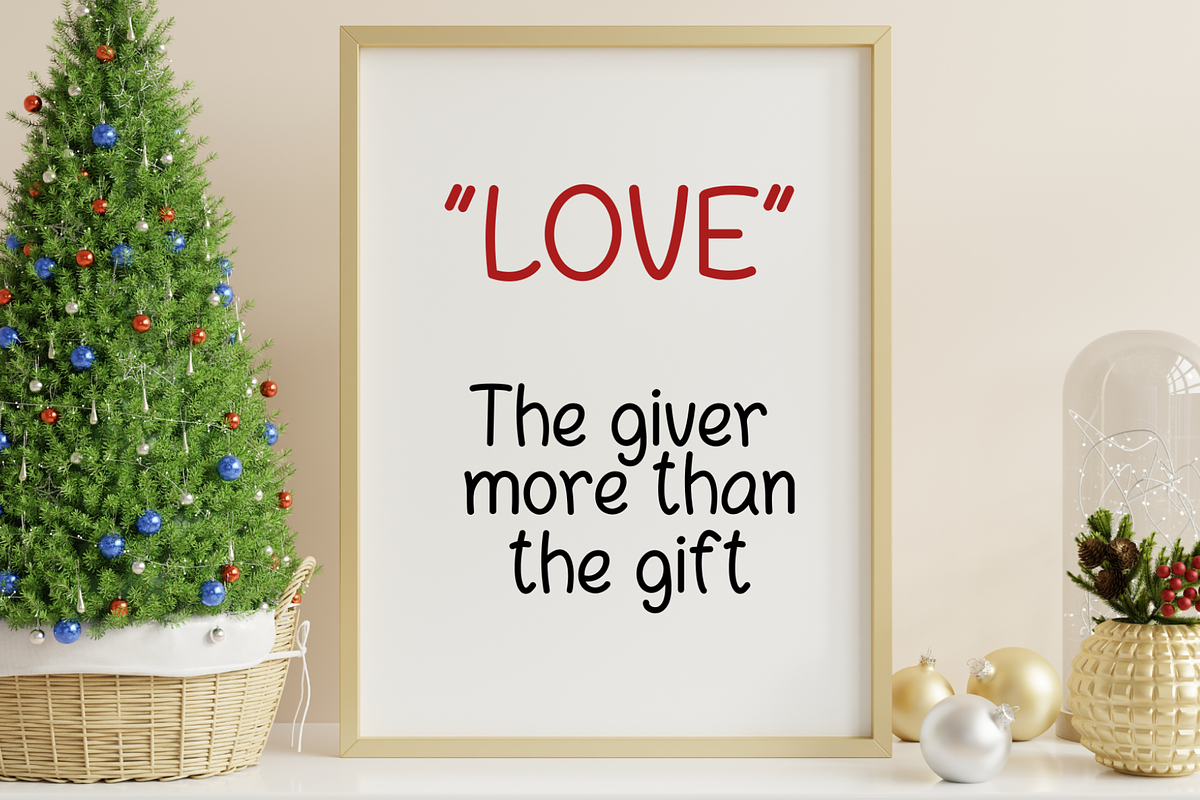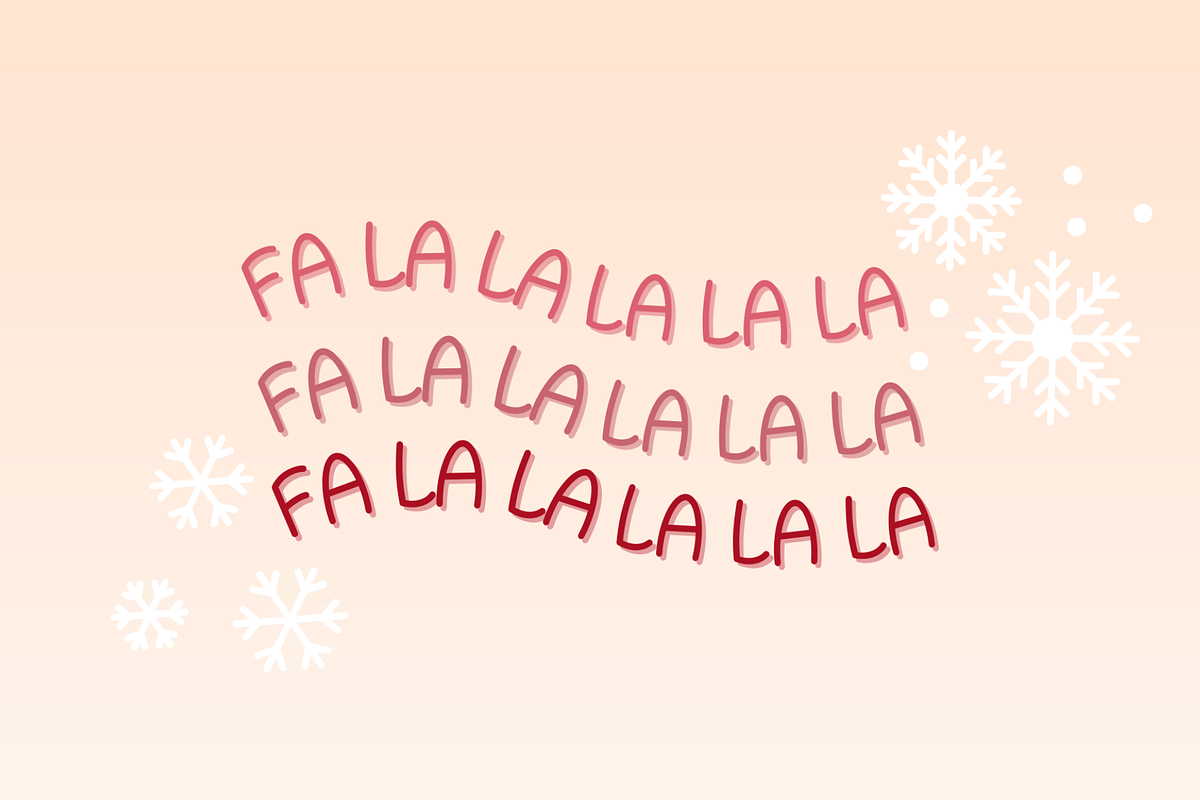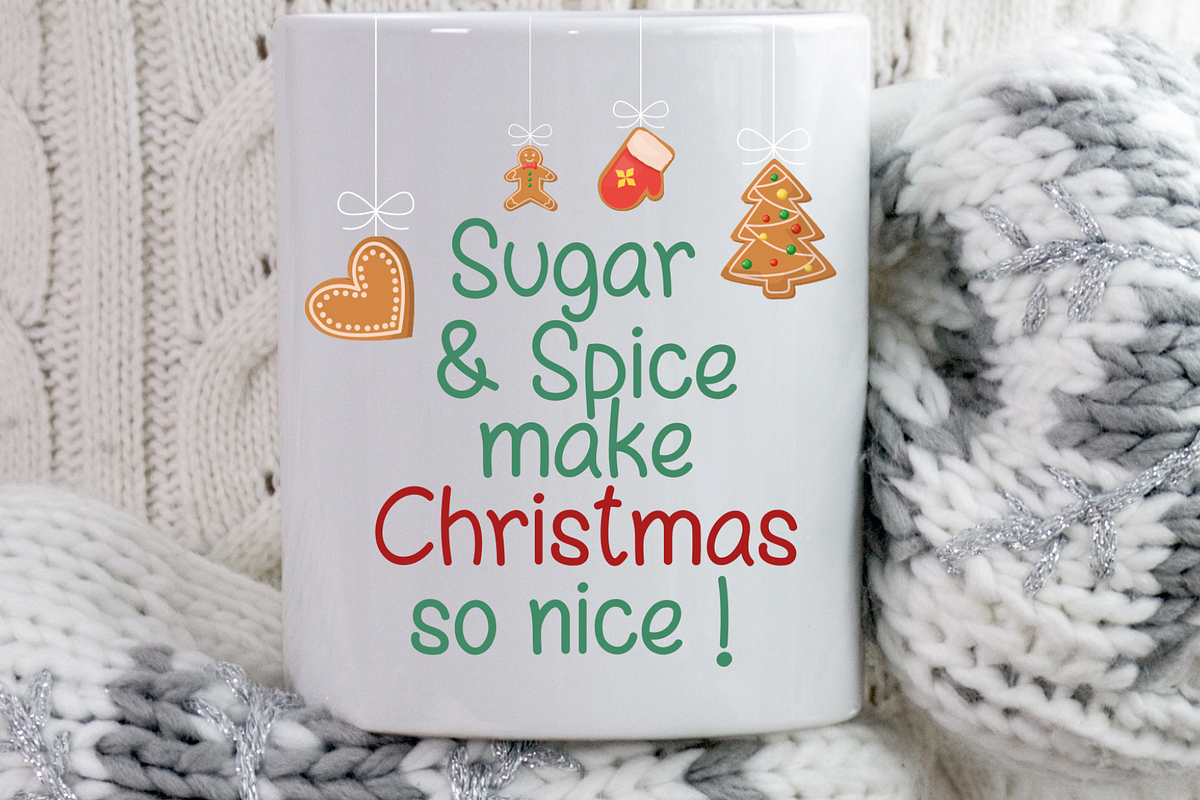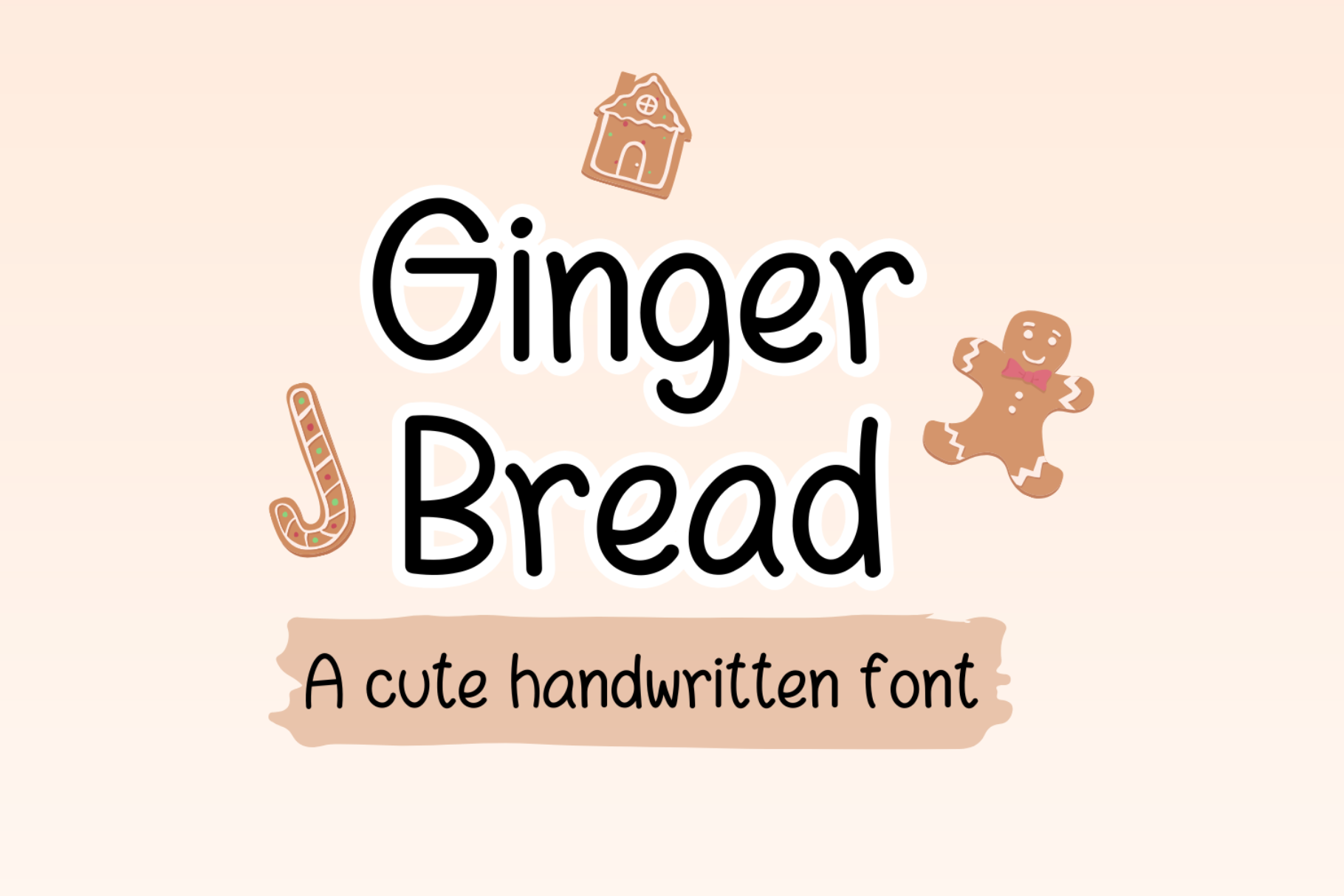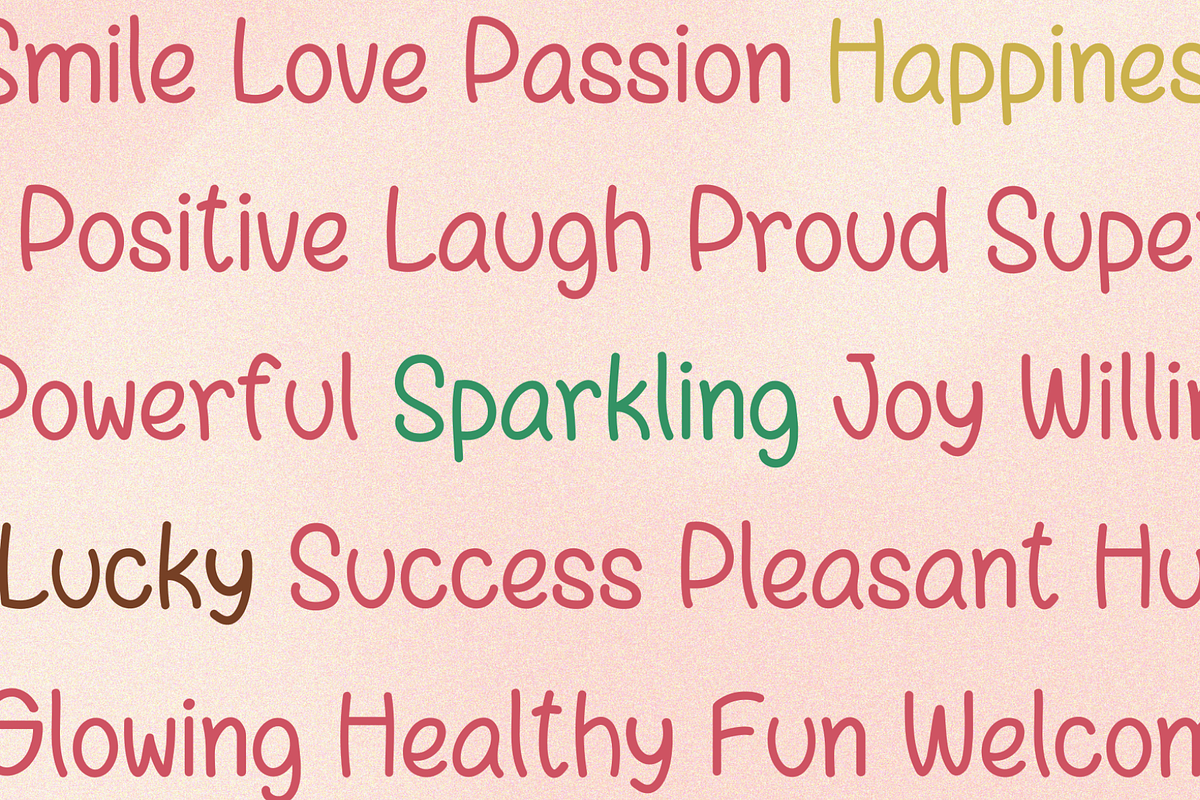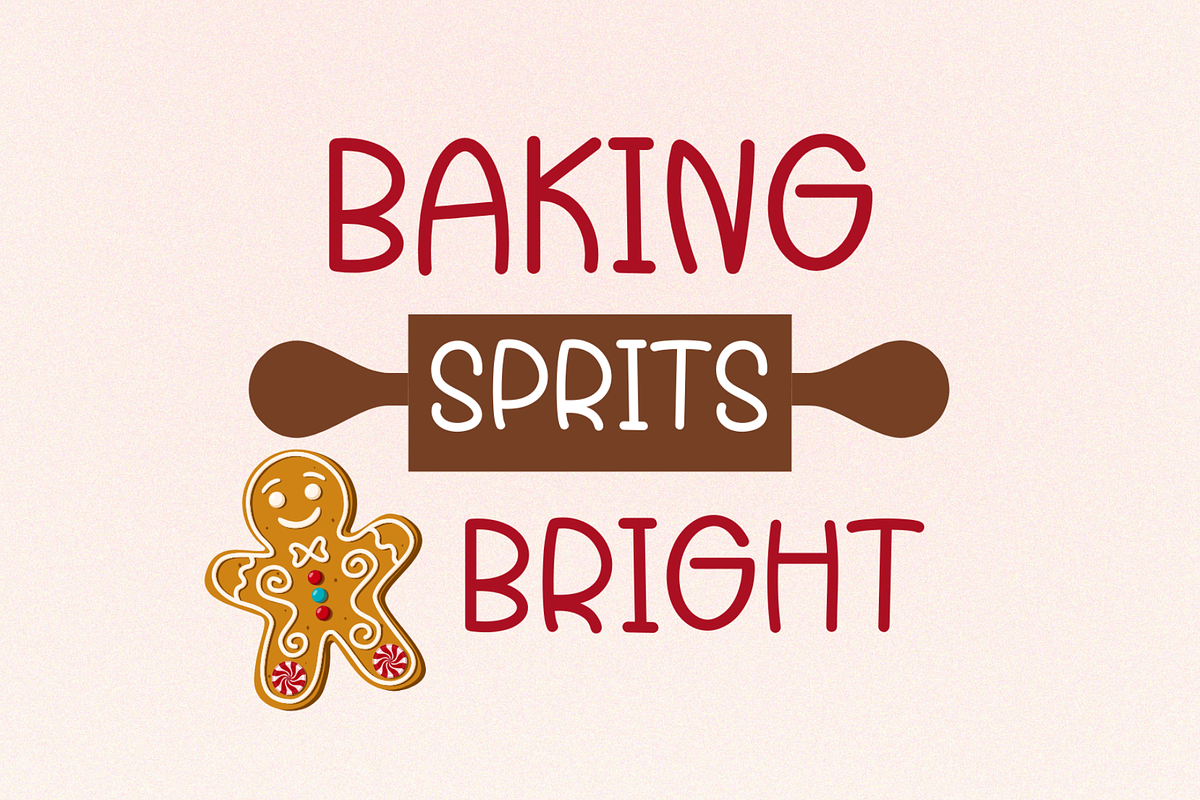
Gingerbread Cute Handwritten Font
Gingerbread is a handwritten font that is cute , playful , neat and clean. It is good for digital prints, greeting cards, quotes for facebook and Instagram, Goodnote, planner, journal and any occasion presentation.